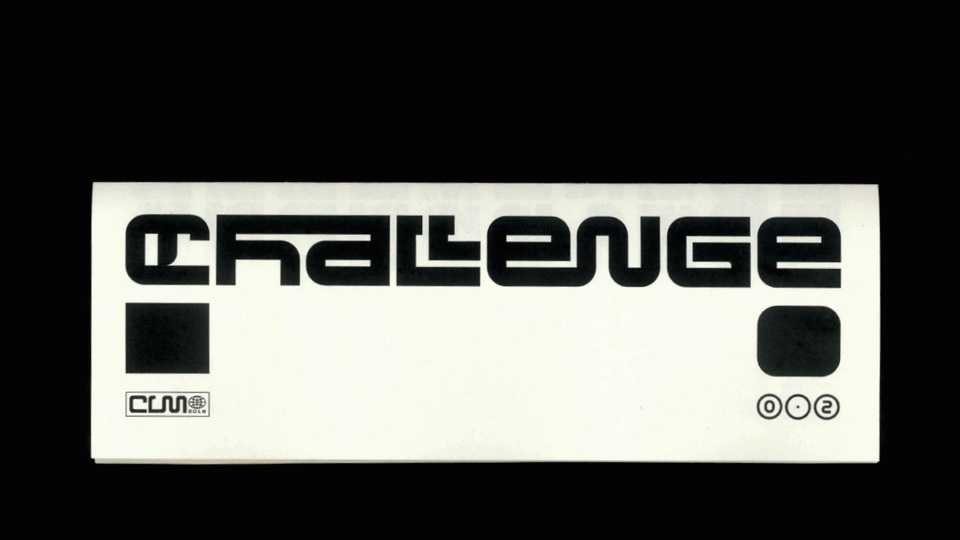
Download Challenge font, a bold display typeface based on a rigorous grid. Challenge font is able to do perfects drifts and challenge you every day.
Designer: Charlie Le Maignan